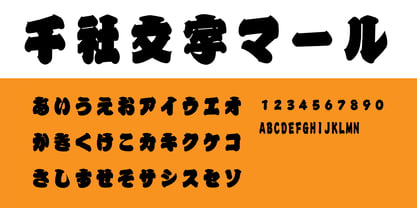
MRSenjamoji
by MAAR-sha
The MRSenjamoji Font Family was designed by and published by MAAR-sha. MRSenjamoji contains 2 styles and family package options. More about this family
This font is based on the book "Display Typeface Collection: Sensha Moji" written by Jin Okawara and published by MAAR Co., Ltd.
The typeface draws inspiration from senjafuda (traditional votive slips often seen at shrines and temples) and is rooted in kagoji, one of the Edo-style lettering traditions. Edo-period craftsmen took great pride in their designs, embellishing characters with intricate decorations to the brink of distortion, competing with one another in showcasing their artistic flair, known as "iki" (stylish sophistication).
This font captures those iconic Edo-style characteristics, such as bold strokes, dynamic shapes, and decorative elements, preserving the "iki" spirit of Edo craftsmen while adapting it for practical use in modern contexts. Perfect for festivals, seasonal events, and celebratory occasions.